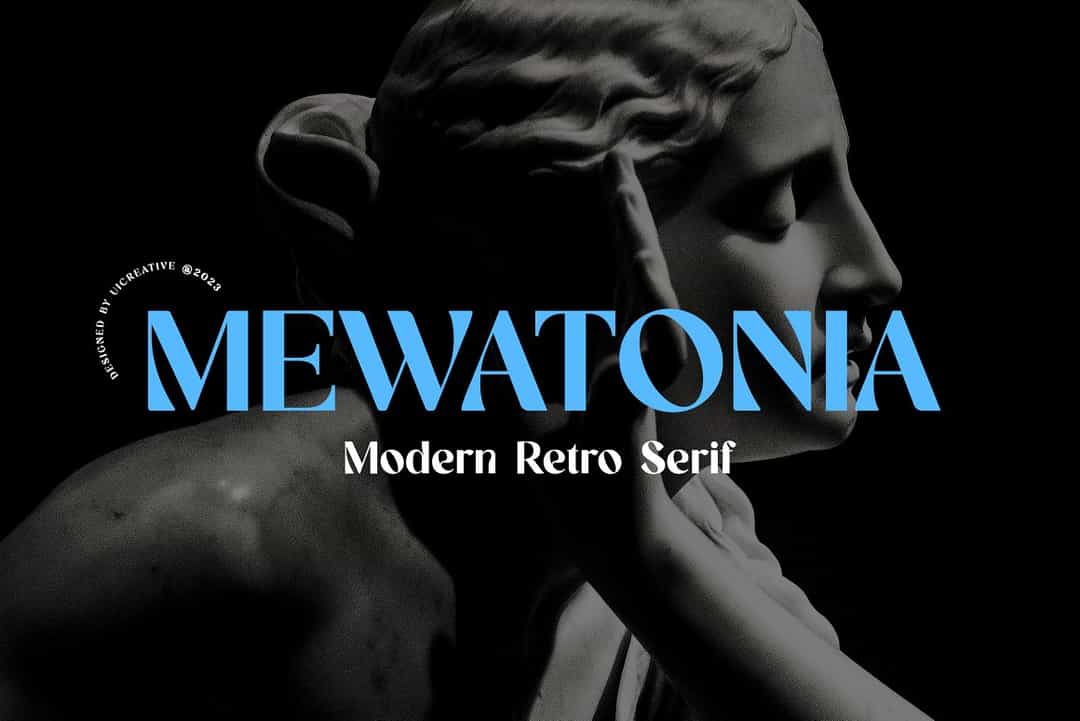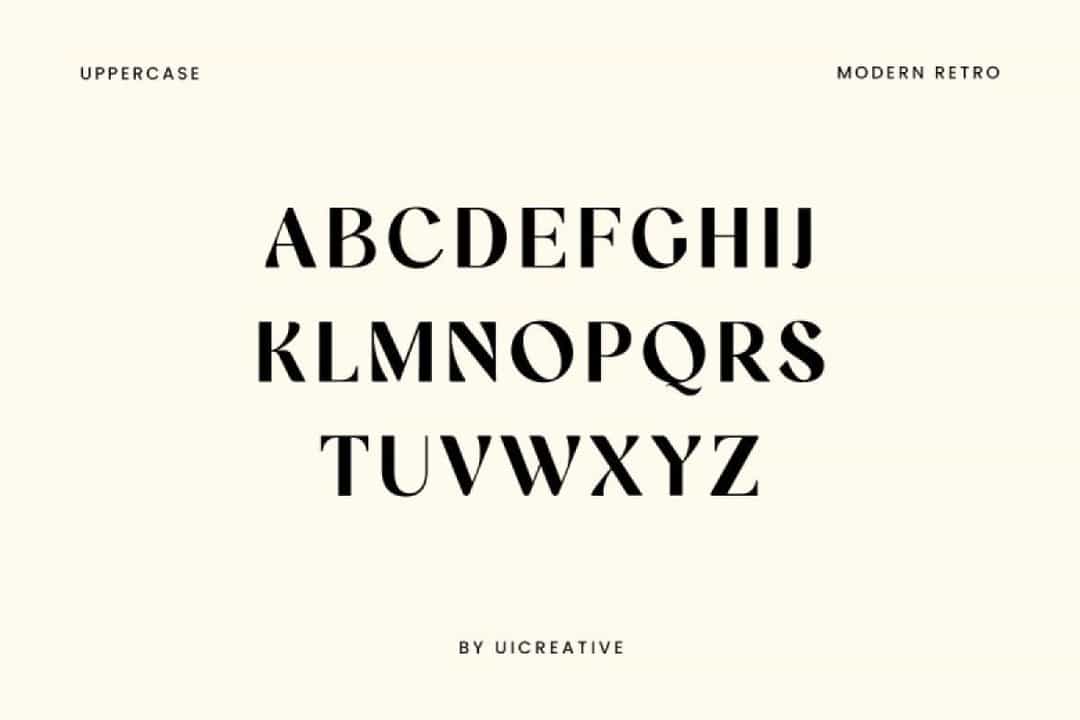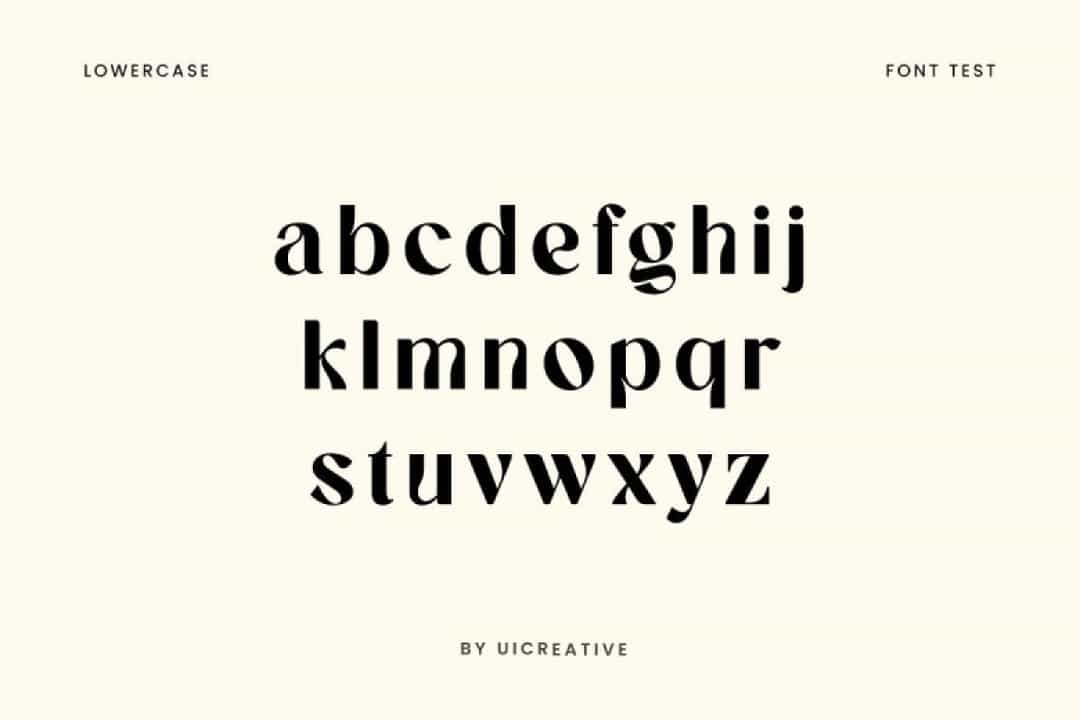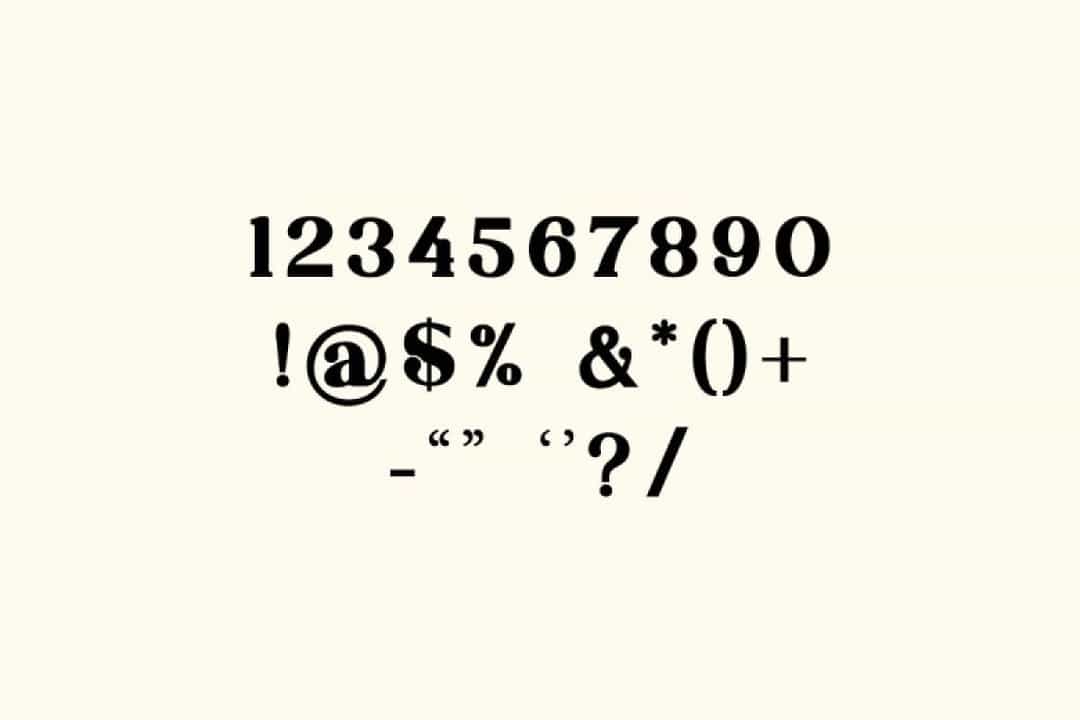
Mewatonia is an elegant classic serif typeface that exudes sophistication and modernity, making it the perfect font choice for stationary designs, signatures, logos weddings and typography quote magazine covers as well as headers for websites and branding clothing packaging design among many other applications. Additionally, fashion-related editorial designs display both feminine and masculine qualities in branding design elements that incorporate Mewatonia.